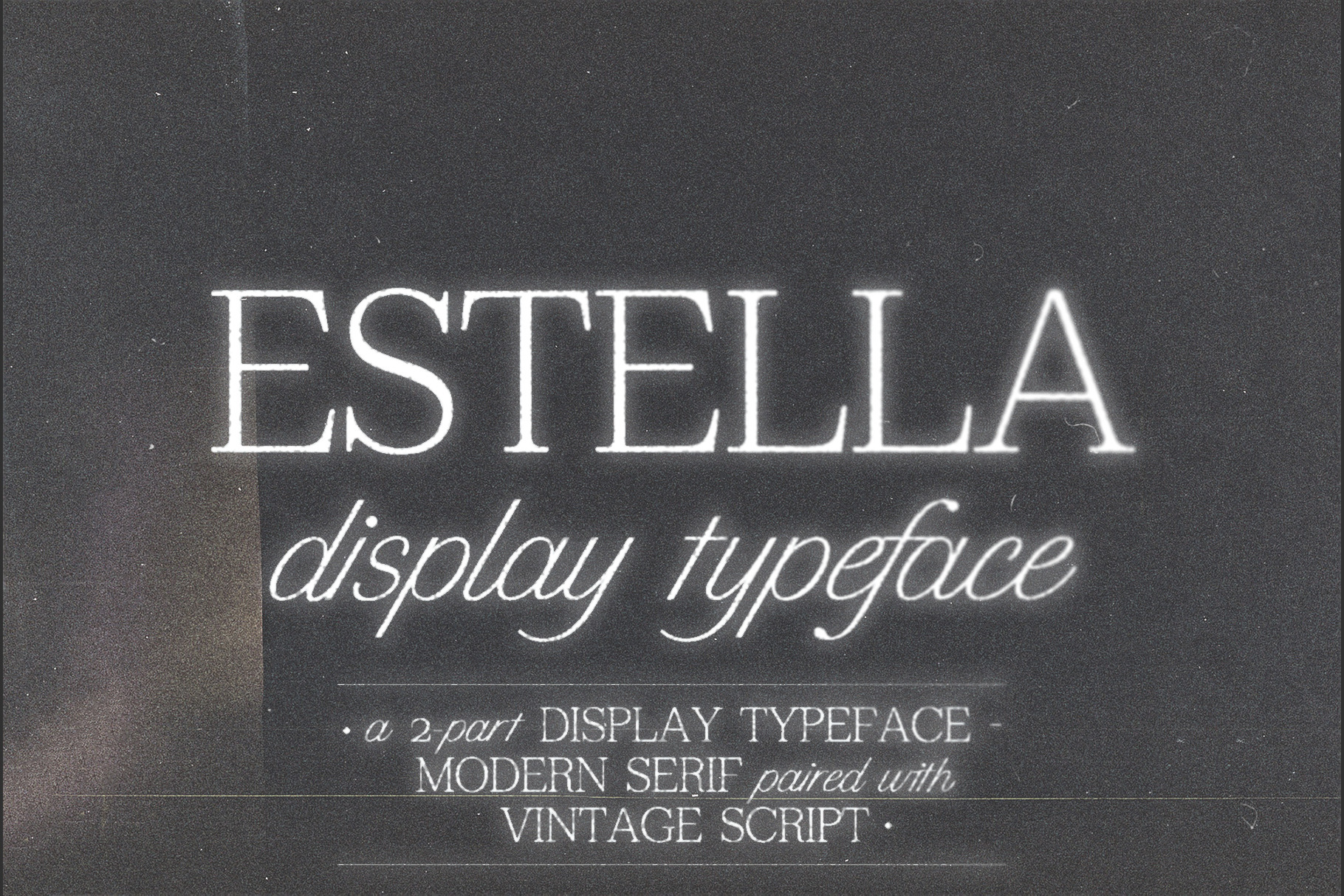
Estella | Display Typeface
Estella is a modern display typeface consisting of two styles - serif and script.
The serif version of the typeface is an unconventional take on classic serif typefaces such as Baskerville, Century and Didot, updated for the 21st century. There's a slight variation between thicks and thins (promoting legibility), and the characters are legible at smaller sizes due to large rounded serifs and open counters.
The script version of Estella is a crisp, edgy take on 1930s-50s signwritten movie title cards. The ascenders are the same height as the characters in the serif form of Estella at any given size, making pairing the two fonts exceptionally easy.